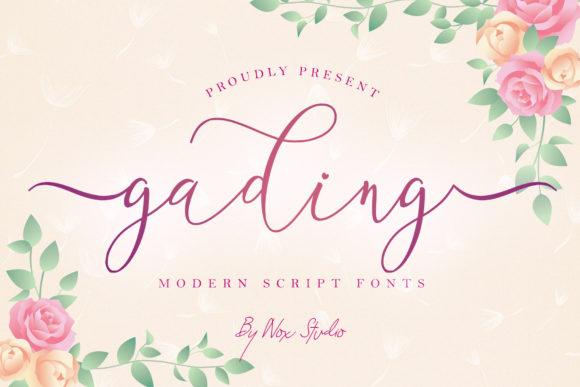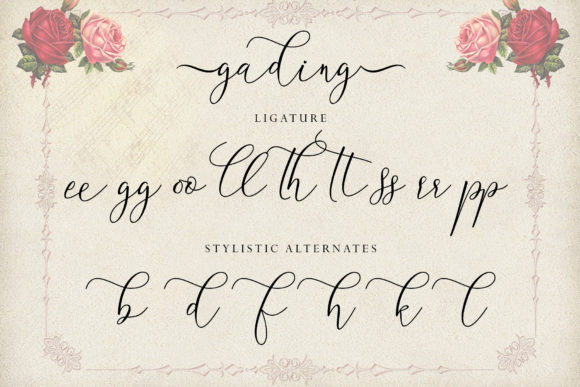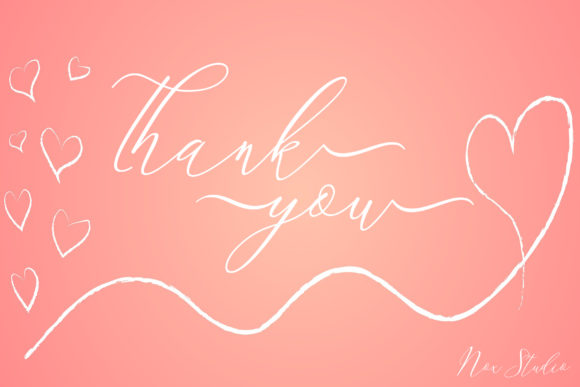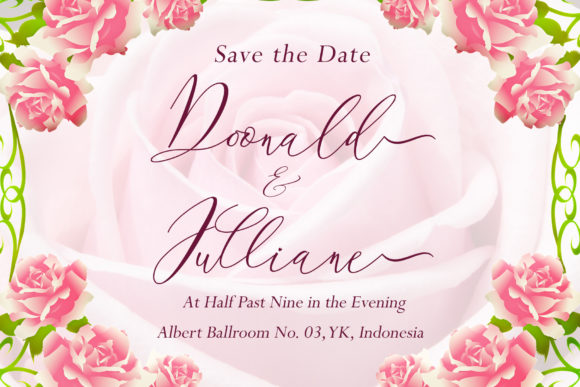
About Gading Font
Gading is a whimsical script font with a relaxed theme, featuring a lovely style. It has beautiful and well balanced characters and as a result, it matches a wide pool of designs. This font is PUA encoded which means you can access all of the glyphs and swashes with ease!